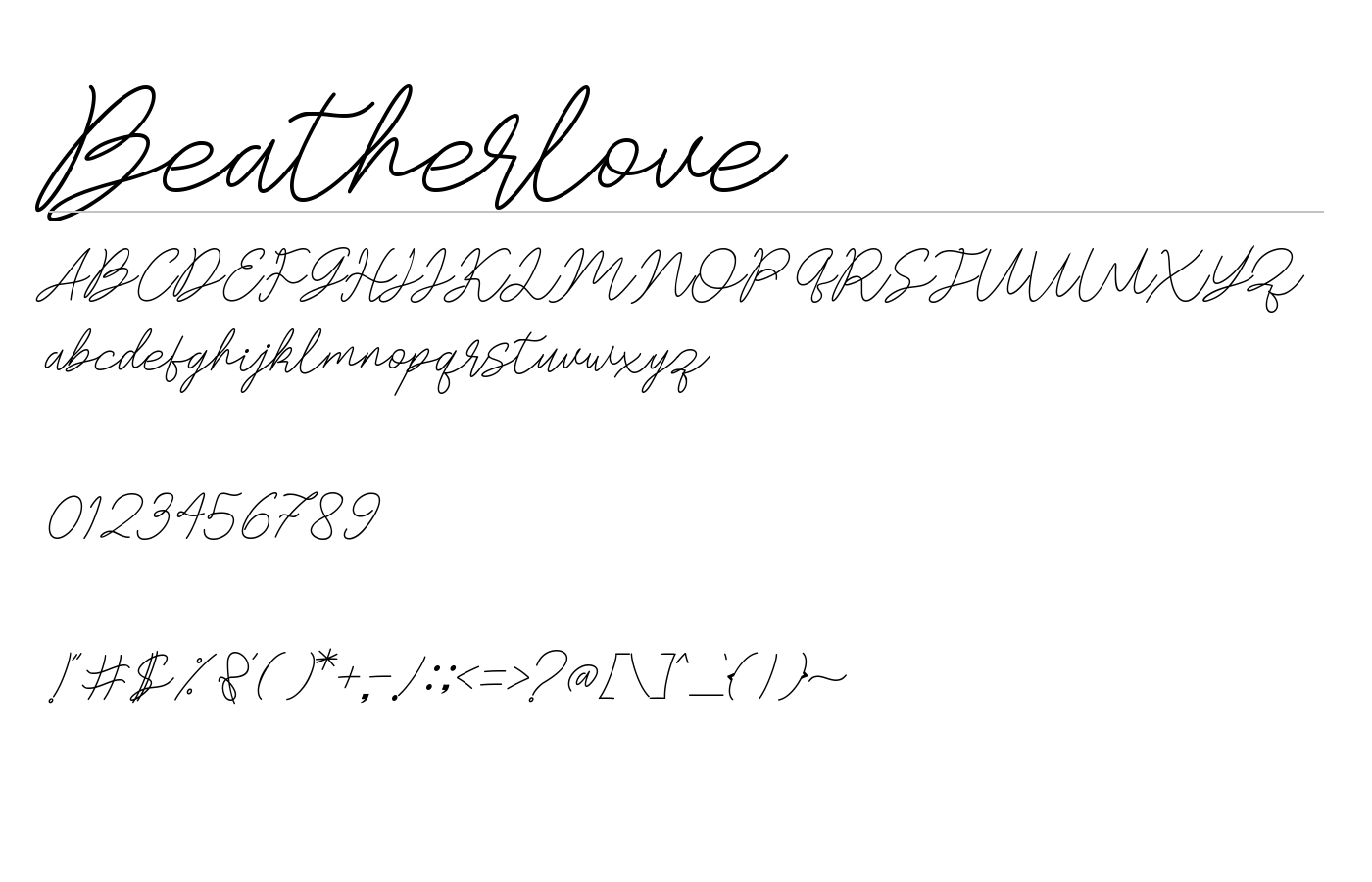
Beatherlove is a delicate, elegant script font with a light, flowing stroke that mimics natural handwriting. Its slender, slightly slanted letterforms create a graceful and personal feel, making it ideal for invitations, branding, and projects that need a touch of sophistication and warmth. This font works beautifully in contexts where a stylish, refined, and intimate atmosphere is desired.
Beatherlove Font
About Beatherlove Font